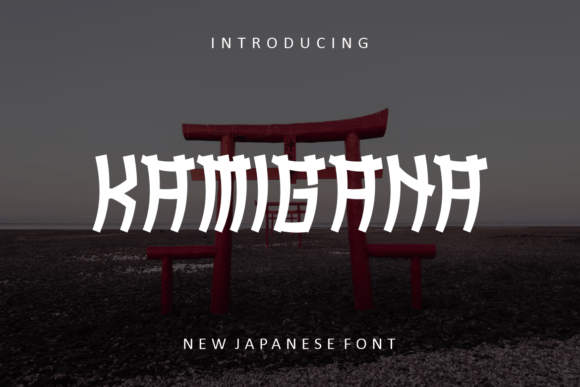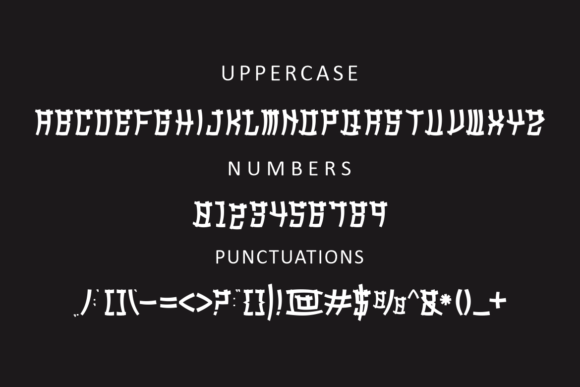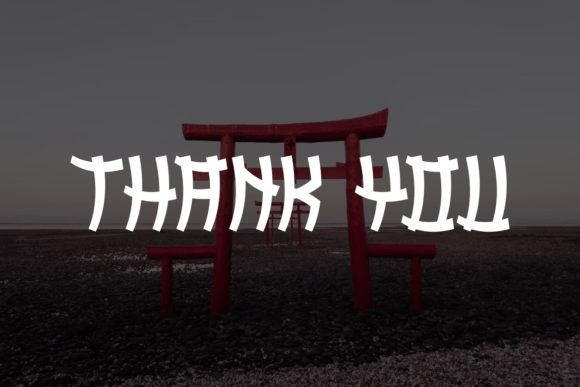
Introduction to Kamigana Font
Have you ever stumbled upon the perfect font for a creative project, only to find that it’s hidden behind a paywall or comes with watermarked images? I’ve been there too. But what if I told you that there’s a free design resource that could elevate your work to the next level? Enter the Kamigana Font, a modern display font that exudes elegance and sophistication.
Perfect for designers, the Kamigana Font offers a high-quality alternative to paid fonts, allowing you to create stunning designs without breaking the bank. Whether you’re working on a signature, logo, or website header, this versatile font is sure to impress. With its transparent background and crisp typography, the Kamigana Font is the perfect choice for any creative project that demands attention to detail.
Key Features of Kamigana Font
• Unique Hand-Drawn Design: The Kamigana Font features a distinctive, hand-drawn style that adds a touch of personality to any creative project.
• Perfect for Creative Projects: The Kamigana Font is ideal for designers working on creative projects, such as branding, packaging, and advertising materials.
Honest Review: Kamigana Font
I recently had the chance to try out the Kamigana Font, and I must say, it’s a great addition to any design resource library. As a designer, I’m always on the lookout for high-quality fonts that can elevate my creative project.
• ✨ Unique and quirky design that adds a touch of personality to any text
• ✨ High-quality vectors that can be easily scaled up or down without losing any detail
• ⚠️ Limited character set, which may not be suitable for long-form text
• ⚠️ May not be suitable for formal or professional projects due to its playful nature
Overall, I’d say the Kamigana Font is a great choice for designers looking to add some creativity to their projects. It’s perfect for social media graphics, blog posts, or any other project where you want to add a touch of whimsy. Just keep in mind its limitations, and you’ll be good to go!
Common Use Cases for Kamigana Font
The Kamigana Font is ideal for a wide range of creative projects, including graphics, presentations, and documents. Its high quality and transparent background make it perfect for use in design software, such as Canva, Adobe Photoshop/Illustrator, and PowerPoint/Word.